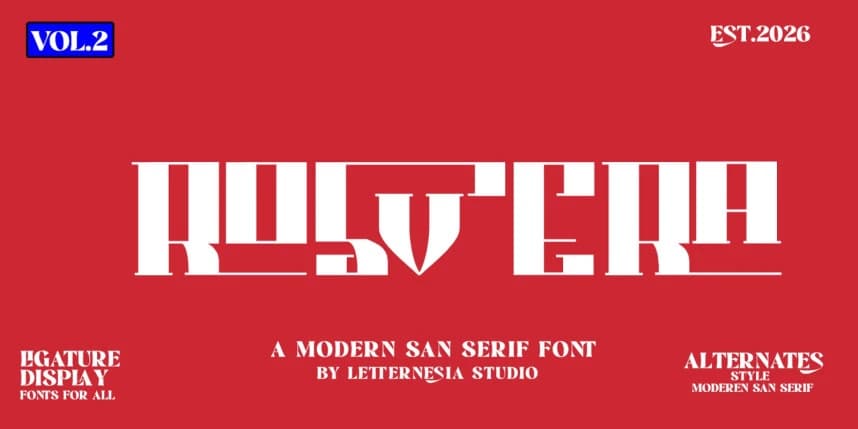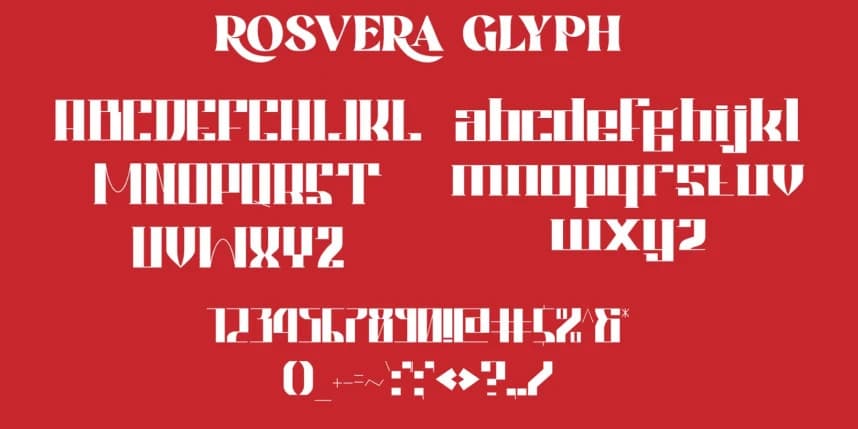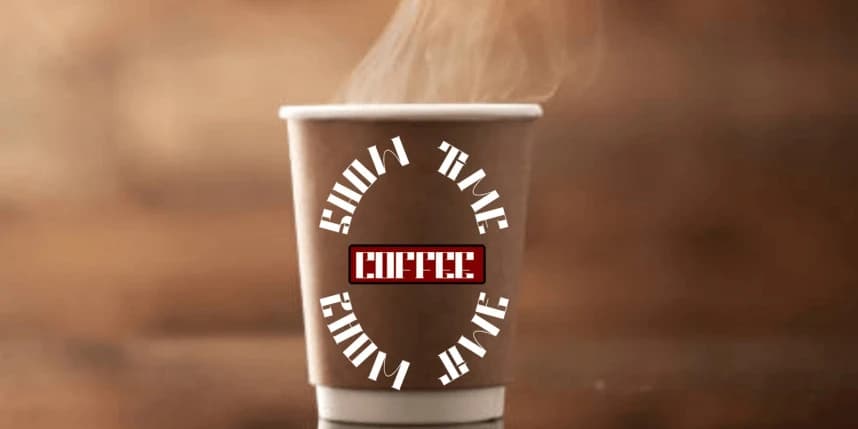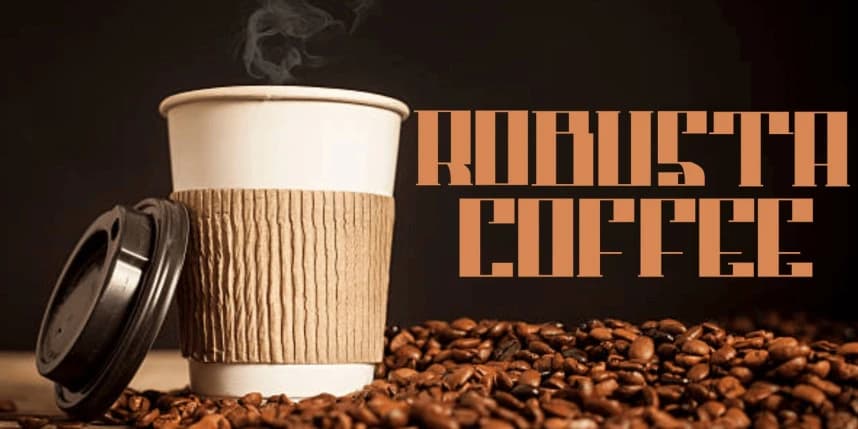
Rosvera Font
Rosvera Font is an elegant serif display font that combines luxury, modern style, and timeless sophistication. Featuring artistic letterforms and strong serif details, this font is perfect for branding, logos, headlines, fashion projects, cosmetics